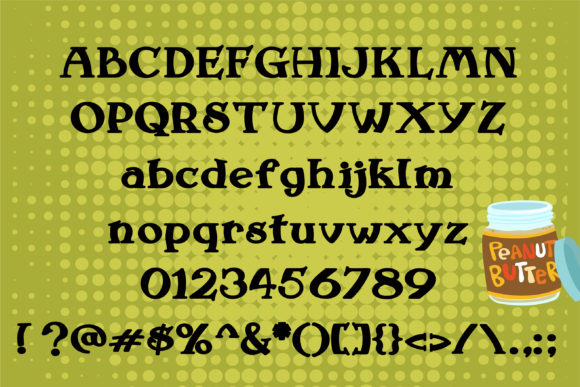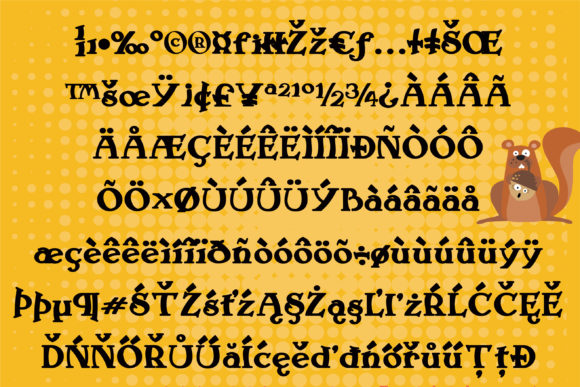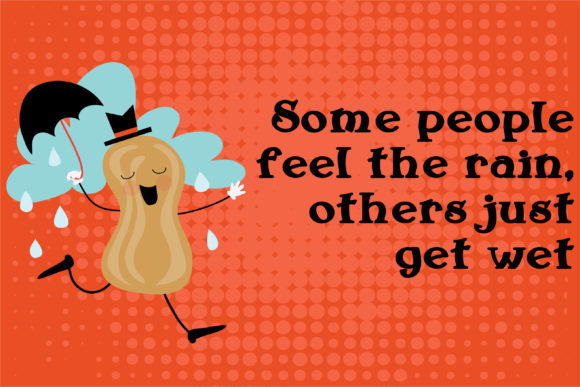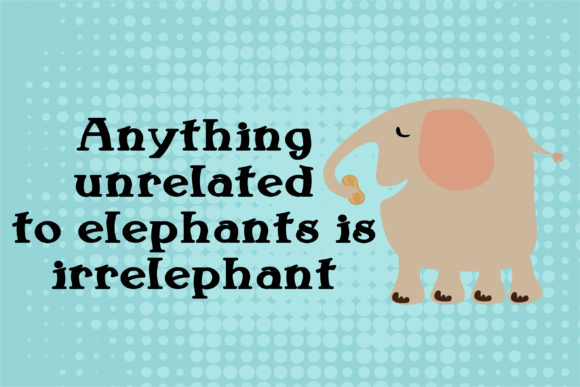
The Whimsical World of Go Nuts Font: A Designer’s Delight
I still remember the design project that led me to discover Go Nuts Font. I was working on a branding campaign for a quirky coffee shop, and I needed a font that would capture their playful yet sophisticated vibe. After hours of scouring font libraries and testing various typefaces, I stumbled upon Go Nuts Font. Its thick and bold serif lines, paired with a whimsical bend, instantly won me over. It was the perfect fit for the project, and I’ve been hooked ever since.
An Honest Review of Go Nuts Font
- ✨ **Unique Character**: Go Nuts Font stands out from more traditional serif fonts with its distinctive whimsy bend, adding a touch of personality to any design.
- ✅ **Readability**: Despite its bold nature, the font remains surprisingly readable, even at smaller sizes.
- 💪 **Versatility**: From headings and titles to short paragraphs, Go Nuts Font adapts well to various design needs.
While Go Nuts Font is a fantastic addition to any design project, it’s not without its quirks. For instance:
- ⚠️ **Limited Online Use**: Due to its file size and complexity, Go Nuts Font might not be the best choice for web design projects where loading speed is crucial.
- 🤔 **Glyph Limitations**: While the font comes with a range of glyphs and OpenType features, it might not have every special character or symbol you need.
The Backstory of Go Nuts Font
Go Nuts Font was designed with the intention of bringing a bit of whimsy and fun into the world of typography. Its creator aimed to craft a font that was not only bold and attention-grabbing but also had a unique personality. The result is a typeface that can add a playful touch to any design project, from branding and advertising to packaging and editorial design.
| Font Name | Go Nuts Font |
| Author | Illustration Ink |
Q: What makes Go Nuts Font unique?
A: Go Nuts Font stands out with its thick and bold serif lines combined with a whimsical bend, giving it a distinctive personality.
Q: Is Go Nuts Font suitable for body text?
A: While Go Nuts Font is bold and readable, it’s primarily designed for headings and titles. For body text, you might prefer a font with better legibility at smaller sizes.